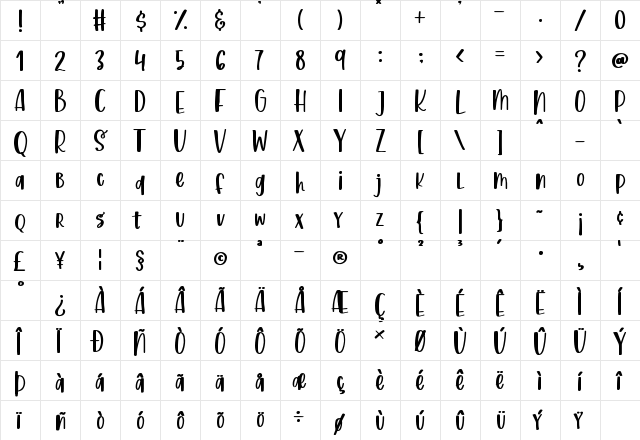
Sweet Bless Regular
Design Context for Sweet Bless Typeface
Sweet Bless is a composed and adaptable typeface that performs quietly and consistently across a wide range of design contexts.